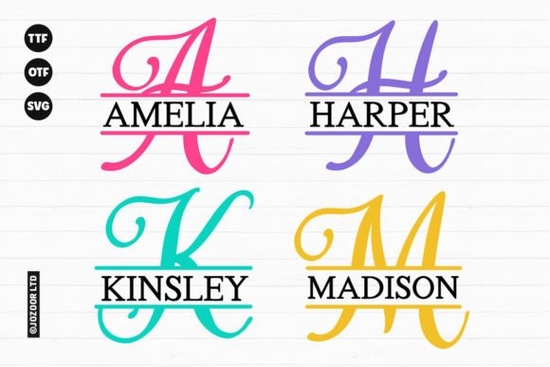
Amelia Split Font is a versatile and stylish typeface that adds a touch of elegance to any design project. Whether you're creating wedding invitations, social media graphics, or custom stationery, this font offers a unique blend of charm and functionality. Its clean lines and playful structure make it ideal for both digital and print applications.
If you're looking for a font that stands out without being too flashy, Amelia Split Font could be the perfect choice. It works well in a variety of contexts, from formal events to casual crafts. The font’s design allows for easy readability while maintaining a decorative flair, making it suitable for a wide range of creative uses.
For those who enjoy working with monograms, Amelia Split Font provides an excellent option. Its split style gives each letter a distinctive look, allowing for personalized touches in your designs. This makes it especially popular among designers, crafters, and small business owners who want to add a personal or branded element to their work.
What Makes Amelia Split Font Unique?
One of the standout features of Amelia Split Font is its balance between simplicity and creativity. Unlike some more complex decorative fonts, this one maintains a clean aesthetic that doesn’t overwhelm the viewer. It’s designed to be used in a variety of settings, from professional projects to handmade creations.
Another benefit is how easy it is to pair with other fonts. You can use it as a headline font to draw attention or as a supporting text for a more subtle effect. Its adaptability ensures that it can fit into many different design styles without clashing.
Best Uses for Amelia Split Font
Wedding planners and event designers often turn to Amelia Split Font for creating elegant invitations and signage. Its delicate yet bold appearance makes it ideal for special occasions where a personal touch is important. You can use it to write names, dates, or messages that stand out without being too distracting.
Crafters and DIY enthusiasts also find value in this font. It’s great for customizing greeting cards, scrapbook pages, and handmade tags. Its clear structure ensures that even small details are legible, which is essential when working with physical items.
For social media marketers and content creators, Amelia Split Font can help make posts more visually appealing. Whether you’re designing a quote graphic, a banner, or a profile picture, this font adds a refined look that can enhance your brand’s visual identity.
When choosing a font, consider the tone and purpose of your project. Amelia Split Font is best suited for designs that require a soft, elegant touch. It may not be the best choice for high-impact headlines or large blocks of text, but it shines when used thoughtfully.
Before finalizing your design, always test the font in different sizes and backgrounds to ensure it looks good in all scenarios. This will help you avoid unexpected issues when the final product is printed or displayed online.
If you're new to using decorative fonts, start by experimenting with a few different styles. This will help you understand how each one affects the overall look and feel of your work. Over time, you'll develop a better sense of which fonts work best for specific projects.
Whether you're a designer, a crafter, or a small business owner, Amelia Split Font offers a reliable and attractive option for adding a personal touch to your creations. With its clean design and versatile use, it's a valuable addition to any creative toolkit.
- Try using Amelia Split Font for a monogram on a custom gift.
- Pair it with a simple sans-serif font for a balanced design.
- Test the font in different sizes to see how it performs in various formats.